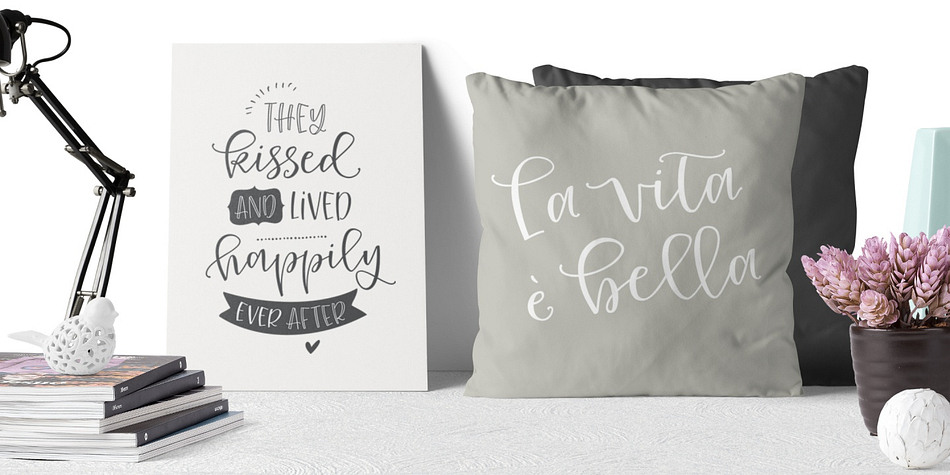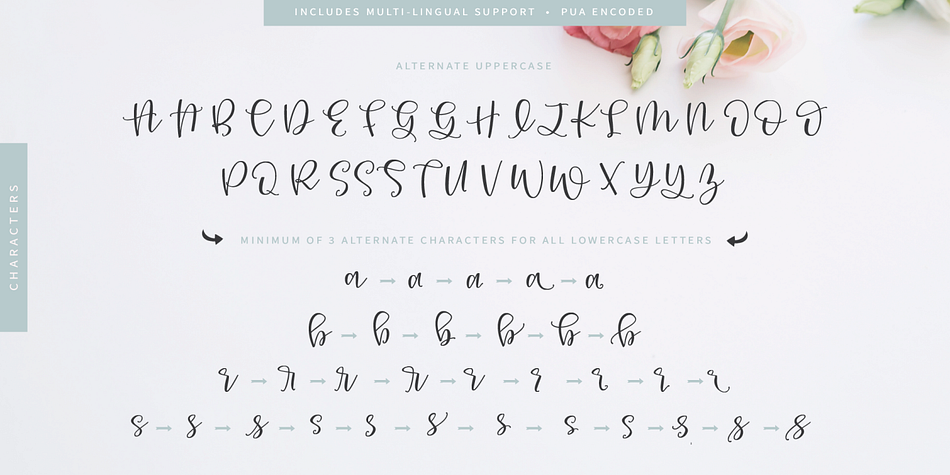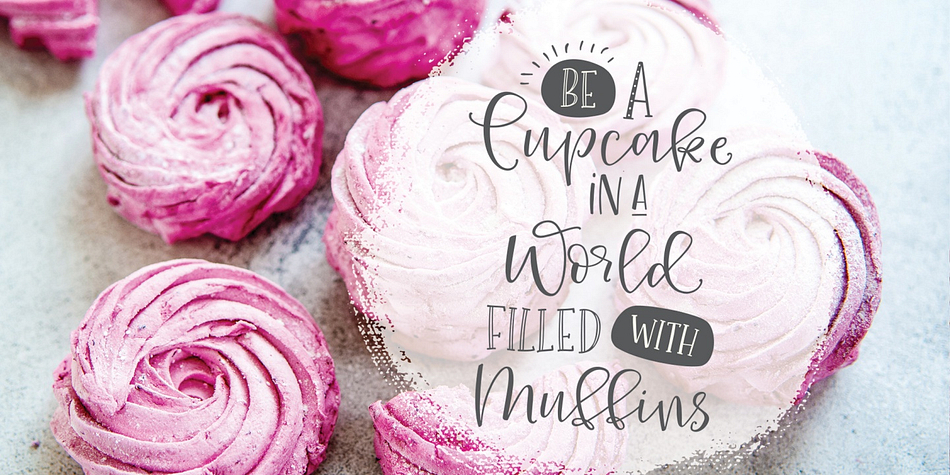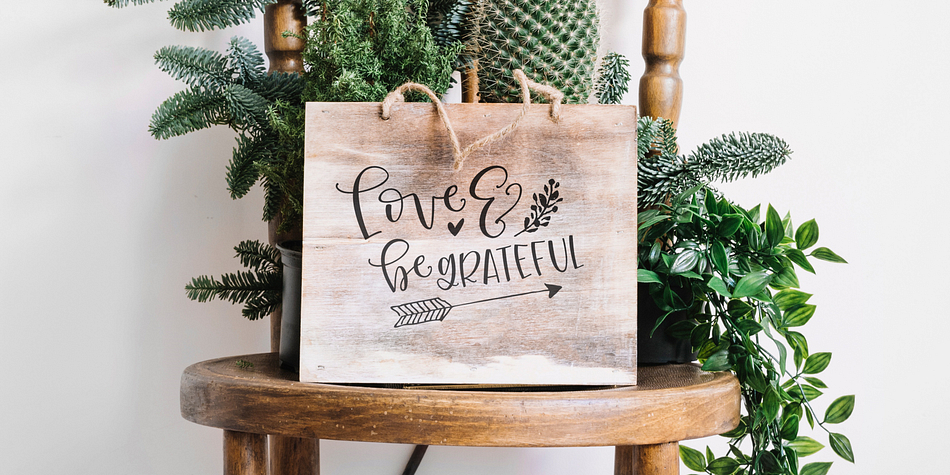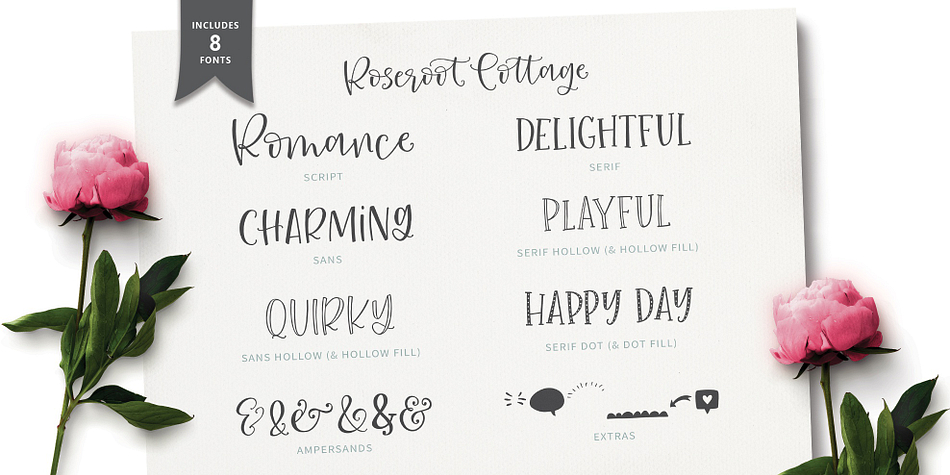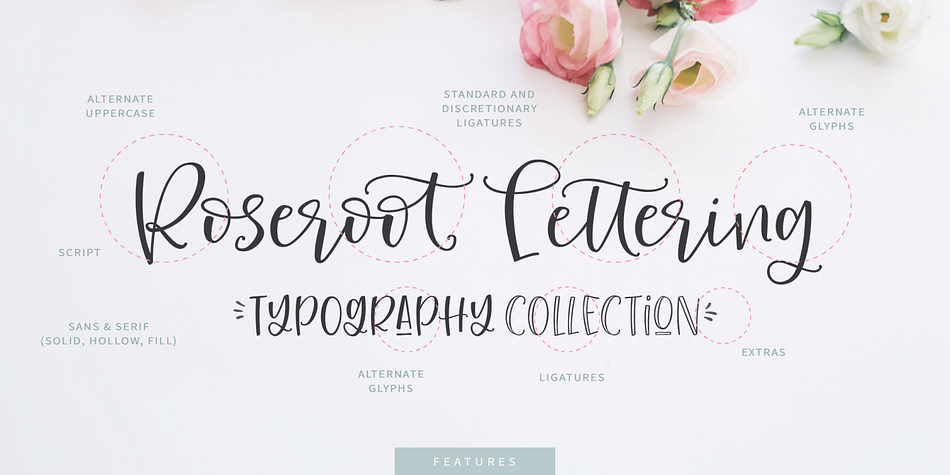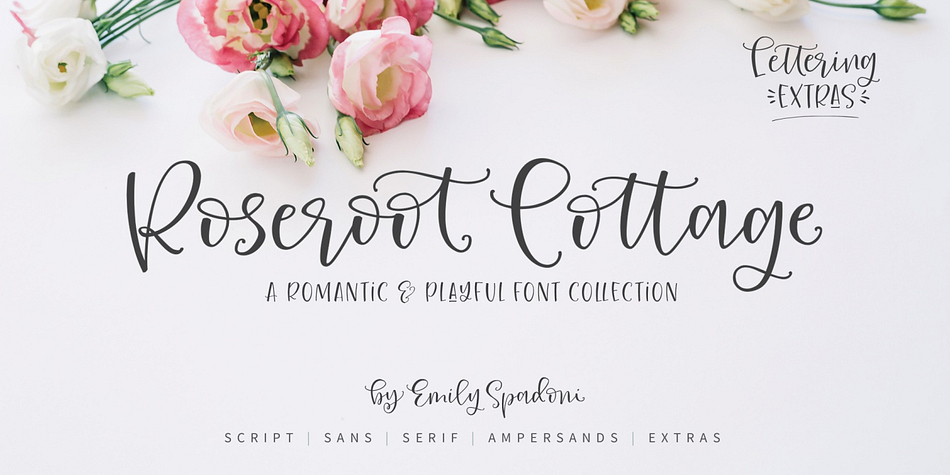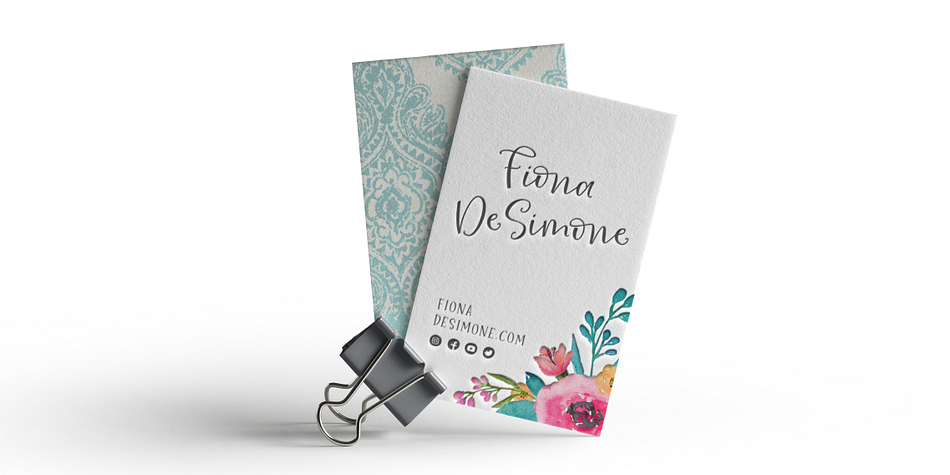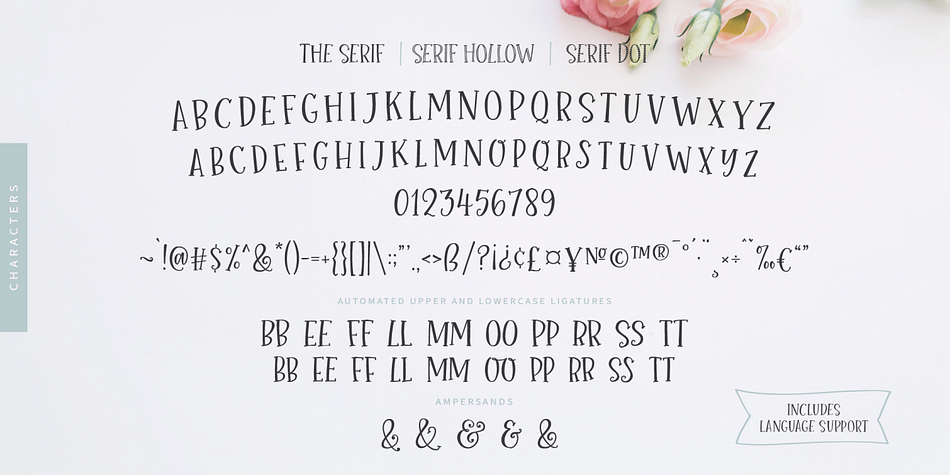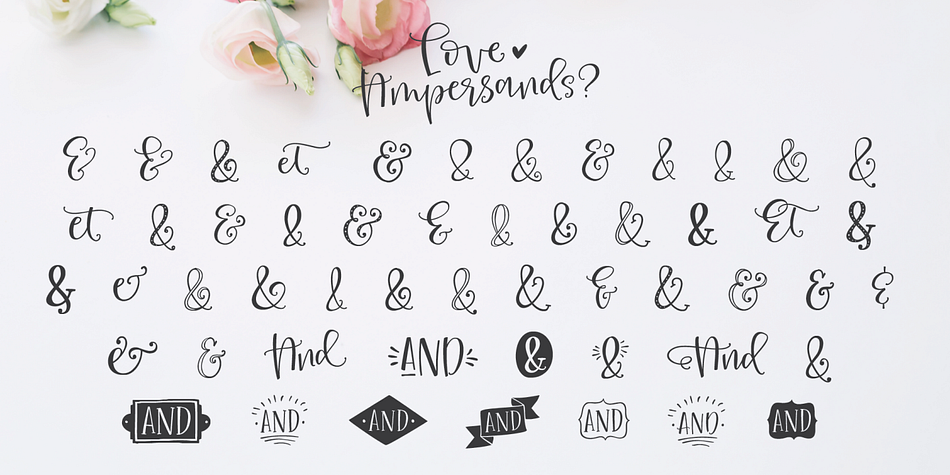
Designed by Emily Spadoni, Roseroot Cottage Font Collection is a multiple classification font family. This typeface has eleven styles and was published by Emily Spadoni.
Please meet Roseroot Cottage. Sweet, Romantic, Playful and a little bit quirky.
Roseroot Cottage is a darling cursive script that mimics imperfect hand-lettering.
Multiple alternates for every lowercase character and any more on the common repetitive characters. For those of you who know me - always a ton of additional fun decorative characters. An alternate set of Uppercase.
Love Ampersands? Me too! An entire file just for you.
Every letter will flow with the automated (upper & lower) standard and discretionary ligatures with even more to add as you choose! Choose and alternate your own initial and terminal forms. Gorgeous discretionary ligatures that will definitely make your type stand out from the crowd.
Designers will have a blast with this collection that includes an equally charming coordinating hand drawn Sans and Serif Use the fun Typography Shapes, Lines, borders, arrows, and call-outs for your typography concepts.
Social Media Logos, too It’s never been easier to add your social handle. I put them right in keys 1-0 (and Shift 1-0) of the Extras file.
Automated Standard and Discretionary Ligatures plus more of your choice
Tons of alternate lowercase initial and terminal characters
Alternate uppercase
Multi-lingual support, International and Special Punctuation